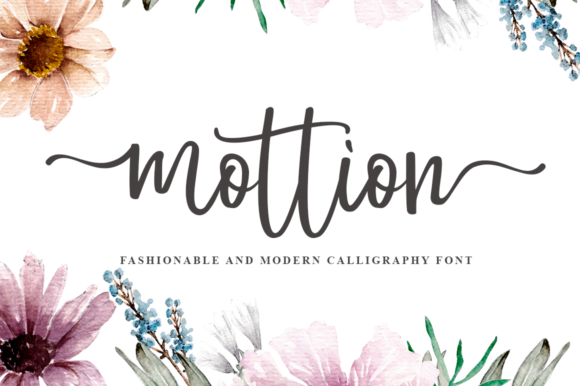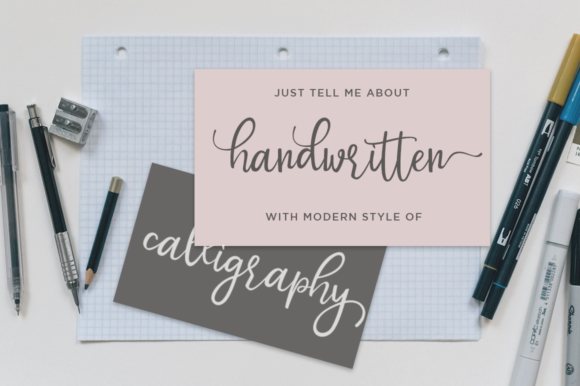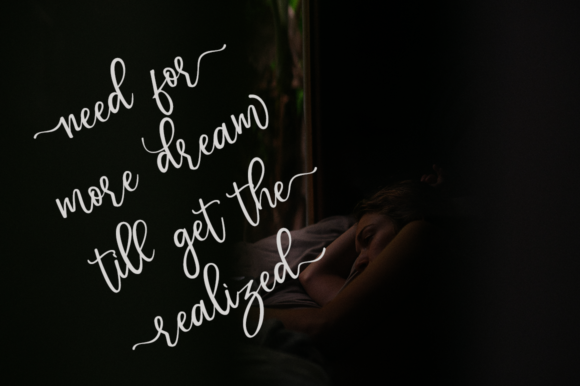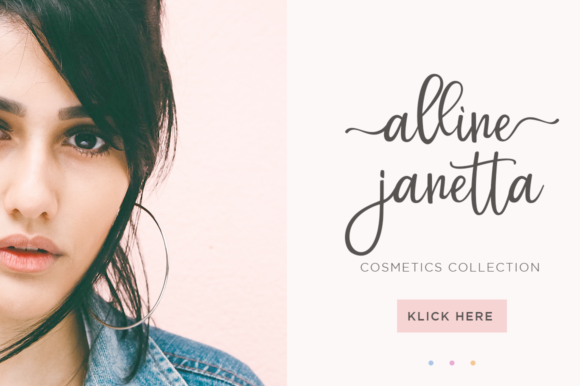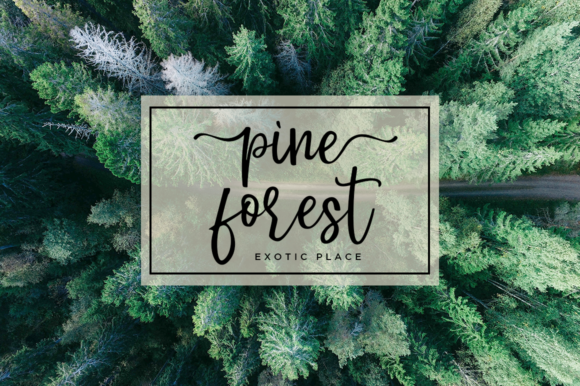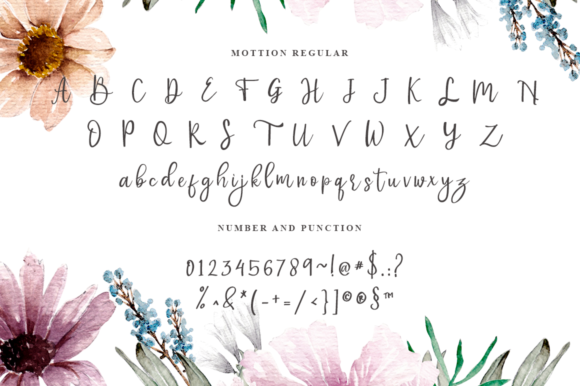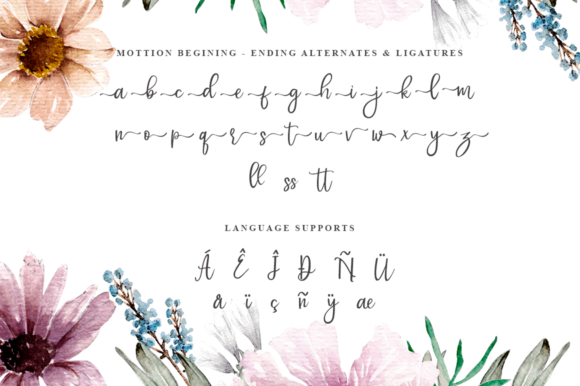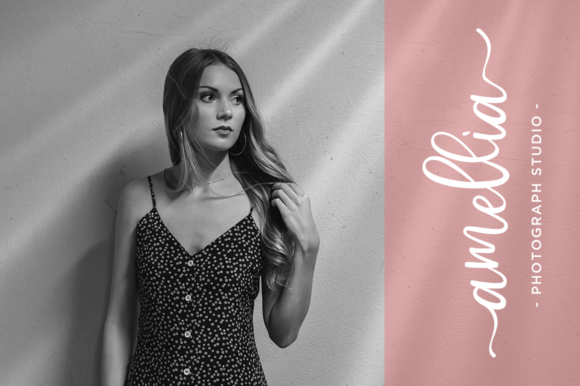
HomeScript FontsMottion Font Script Fonts Mottion Font FacebookXPinterestWhatsApp Mottion Font Poster 2 Mottion Font Poster 3 Mottion Font Poster 4 Mottion Font Poster 5 Mottion Font Poster 6 Mottion Font Poster 7 Mottion Font Poster 8 About Mottion Font Mottion is a sweet and fun handwritten font with an authentic twist. Get inspired by its youthful charm! DOWNLOAD NOW People also explored Wakanda Font Fragrant Font Santa Baby Font Bladis Font Bad Medicine Melly Holly Font Repent December Font Hayasaka Font 324 0 TagsMottion Font Previous articleDelight FontNext articleMidlestone Font LEAVE A REPLY Cancel reply Comment: Please enter your comment! Name:* Please enter your name here Email:* You have entered an incorrect email address! Please enter your email address here Website: Save my name, email, and website in this browser for the next time I comment. Personal Use Free Allea Sweet Personal Use Free Read more about this font Crack Man Personal Use Free Read more about this font Hubbies Personal Use Free Read more about this font Americana Personal Use Free Read more about this font BLOG Transform Your Website: Elevate Your Typography with 7 Best Web Font Generators Are you ready to transform your website's typography from ordinary to extraordinary? Great! Today, we're diving into the world of web font generators, which... Free vs Paid Fonts: Why Investing in Premium Fonts Is Worth It Best Fonts for YouTube Videos: Make Your Thumbnails Stand Out Exploring Font Trends